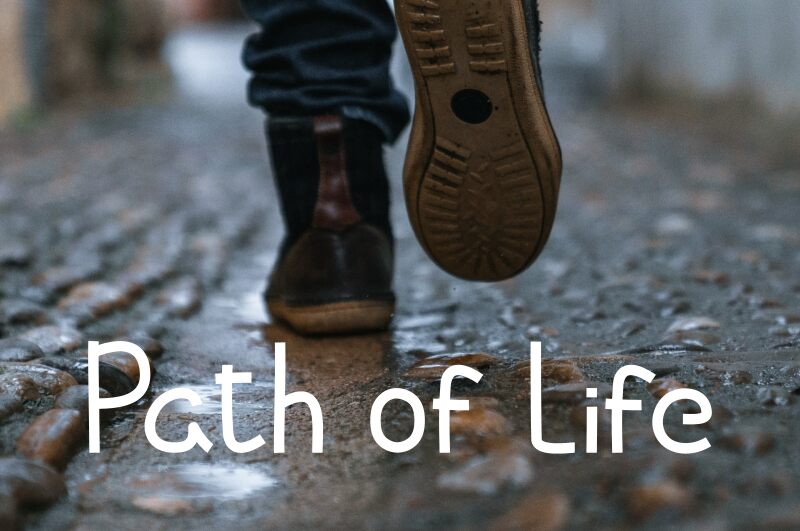
Carlonezo
Carlonezo is a light script font designed by Chandra Chandro. This elegant font is perfect for giving any project a beautiful, timeless feel. From wedding invitations to graphic designs, Carlonezo is ideal for adding a touch of class and style. With its smooth curves and delicate strokes, this font will bring life to logos, posters, cards and other creative projects.